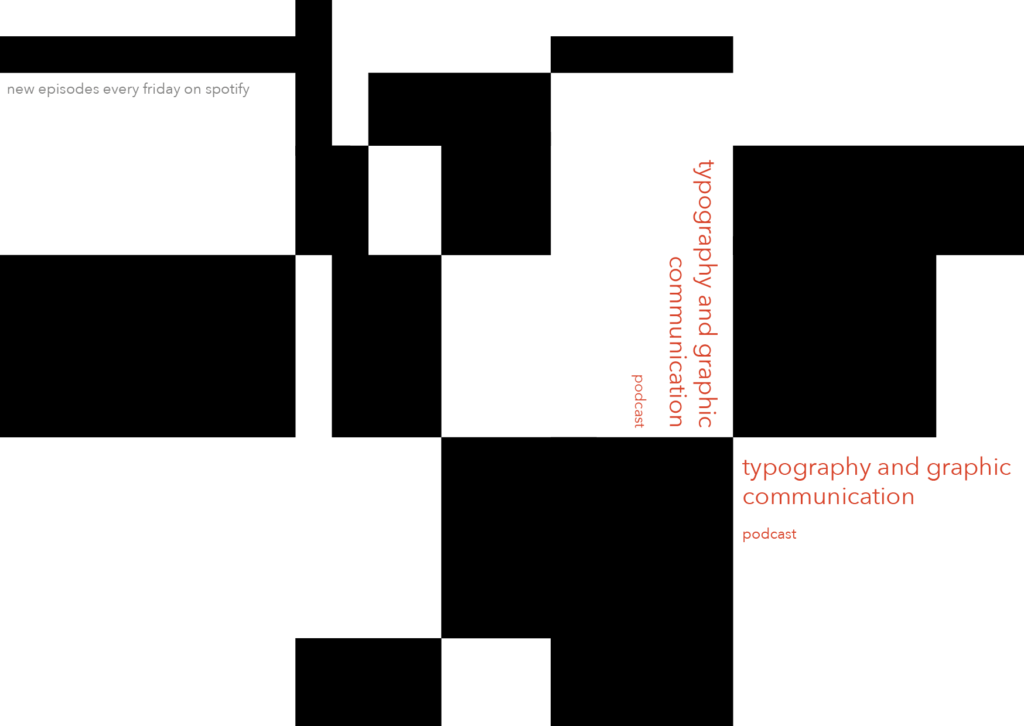
Design ideas and design process
Idea 1
For my first design (Figure 1) I simply took my podcast cover and made it fit the postcard format better. I added a thick black bar to break up the composition and included the apple music and Spotify logos at the top-left of the page. I counterbalanced the image at the bottom-right by adding a man who is appearing to be pushing the black bar — this adds movement to the design. To make the image fit in better with my original ‘Typophoto’ inspired theme I recoloured it to black and white, using the fact that linked photos automatically update when you edit the original file to my advantage.
Idea 2
This design is the strongest of the three (Figure 2). Not only is it aesthetically pleasing but it is also well planned out. I used the Fibonacci sequence to create a grid: firstly I used rectangles to produce a shape that differentiates with every interval in the sequence (Figure 3). After this I used these intervals as markers for where to place ruler guides both on the horizontal and vertical axis (Figure 4). I then filled in some parts of the grid that I was left with and this produced a modern and minimalistic arrangement of shapes. The composition looked kind of flat at this point. To fix this, when I came around to adding type, I reflected the main text around the corner of a shape — this gives the postcard a sense of multidimensionality as it prompts the viewer to look at it from different angles in order to read the text.
Idea 3
This final variation, just like previous designs is very minimalist. I used black bars once again but this time to assist the viewer in following the flow of the type. I scaled the words in relation to their importance.
Software tutorials
The first software tutorial I used was ‘How To Draw And Use Fibonacci Grid In Your Design Layout’ (https://youtu.be/n6BsmS68uAo). This introduced me to thinking about the theory behind my designs and how I can use useful features of InDesign such as ruler guides to help me do so. Grids are very effective for making sure that all elements of your composition are aligned and are especially helpful when working on editorial projects. I used the grid to determine the placement of shapes in order to create an abstract picture. Experimenting with the grid has opened up new questions for me and I’d like to explore other ways of manipulating your design through theories and mathematical experiments. It would also be interesting to investigate what makes a good balance between laying out page elements by eye and laying them out using theory.
The second tutorial I watched was ’11 Visual Hierarchy Design Principles’ (https://youtu.be/ZXItTIjC0Wk). This encouraged me to think about what stands out most, and the least, in my compositions and why — whether it was in relation to type size or the colour of certain elements. My third postcard design is the best example of this: the less important the text the smaller it is and the lighter the colour. I also decided to make the main text a bright red that stands out from the black and white. The only mistake I think I made, in regards to hierarchy, is making the black lines so bold. They are quite distracting.
Design resources and articles
After taking a look at some of Genis Carrera’s postcards and their purpose of capturing human ideas or ‘isms’ (https://www.designweek.co.uk/inspiration/philographics-postcard-book-by-genis-carreras/) I thought that I should try represent something in my own work. This inspired me to embody the concept of “design” through my second postcard. The black shapes almost represent building blocks that a designer would have to organise and arrange to create order and balance — hence why some of the shapes appear to have parts which seem as if they could slot into one another. It’s a metaphor for the obstacles a designer is presented with when designing. In general I found the geometric nature of Carrera’s designs successful at conveying a sense of modernity — something which you would want to encapsulate in a ‘Typography and Graphic Communication’ podcast. Design, like many things is about new and fresh ideas, and I think a modern design is the perfect way to capture that.